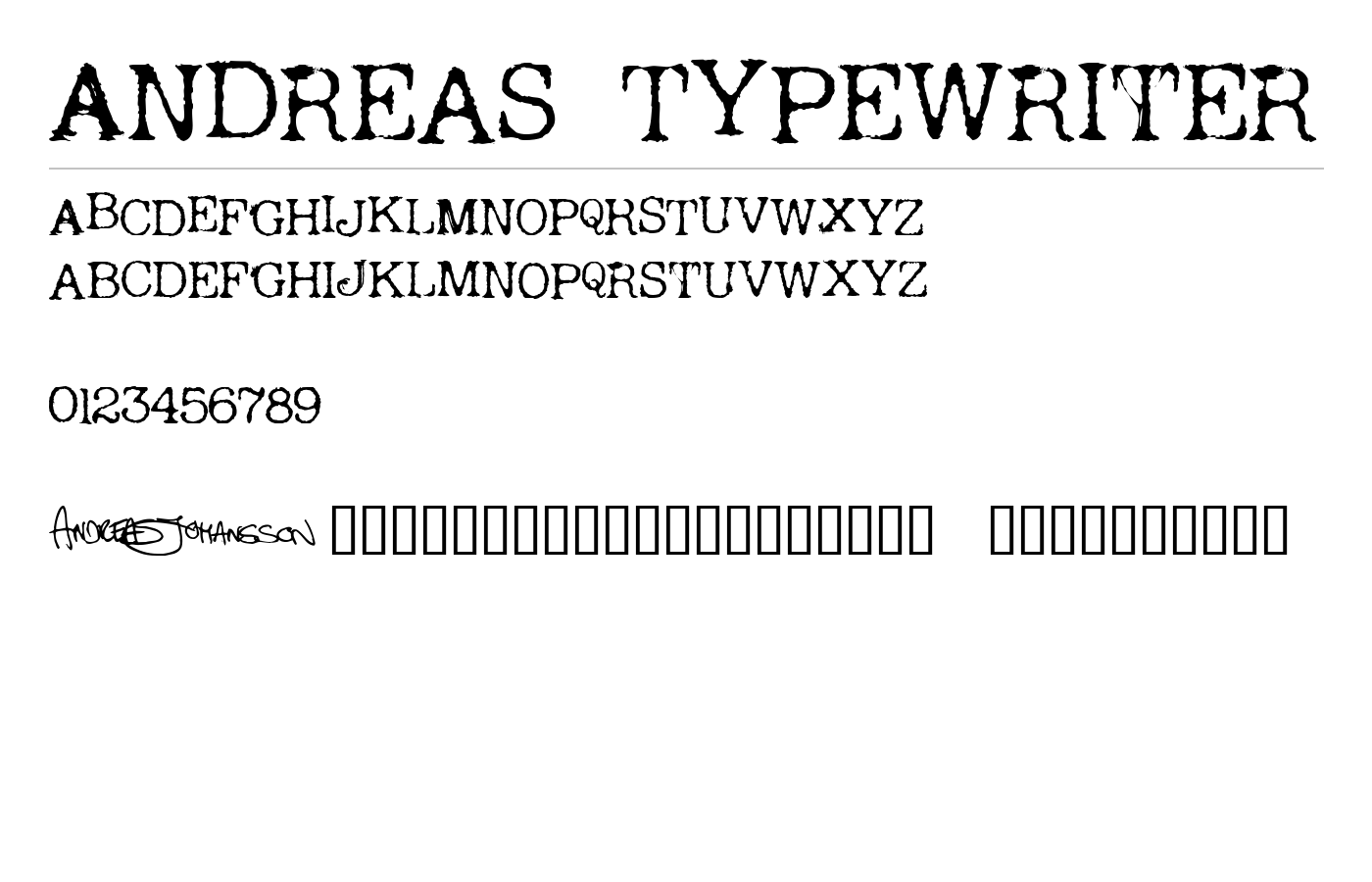
Andreas Typewriter is a distressed serif font that captures the authentic, vintage look of worn typewriter text with its uneven texture and irregular edges. Its medium weight and normal width, combined with old-style figures and distinctive letterforms, evoke a nostalgic, handcrafted feel perfect for projects seeking a retro or literary vibe. This font works especially well in headlines, posters, and editorial designs where a touch of classic charm and personality is desired.
Andreas Typewriter Font